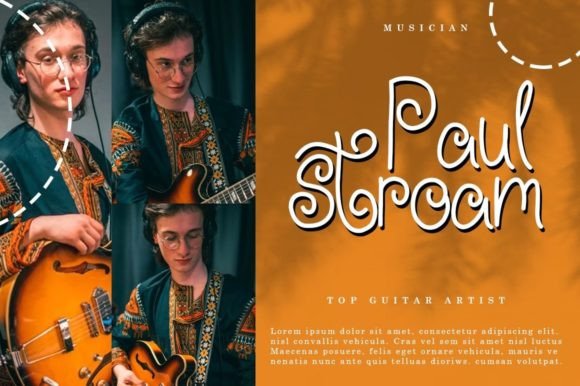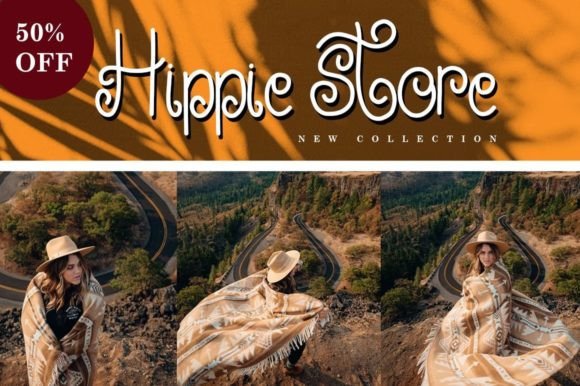
About Hippie Nirvana Font
“Hippie Nirvana” is a classic, vintage, and romantic handwritten font that offers adaptability for a variety of design projects. Its timeless style makes it perfect for applications such as logos, events, business cards, greetings cards, social media posts, wall art, websites, and more.
The classic and vintage elements of “Hippie Nirvana” contribute to its versatility, allowing it to evoke a sense of nostalgia while maintaining a romantic and timeless aesthetic. This adaptability makes it suitable for both formal and informal design contexts.
Whether you’re working on branding, event promotions, or social media graphics, “Hippie Nirvana” brings a touch of elegance and charm to your designs. Its handwritten style adds a personal and authentic feel, making it a valuable asset for various creative endeavors.
In summary, “Hippie Nirvana” is more than just a font; it’s a design tool crafted to bring a classic and romantic vibe to your projects. Let this versatile handwritten font be the key to enhancing your designs with a touch of vintage elegance.